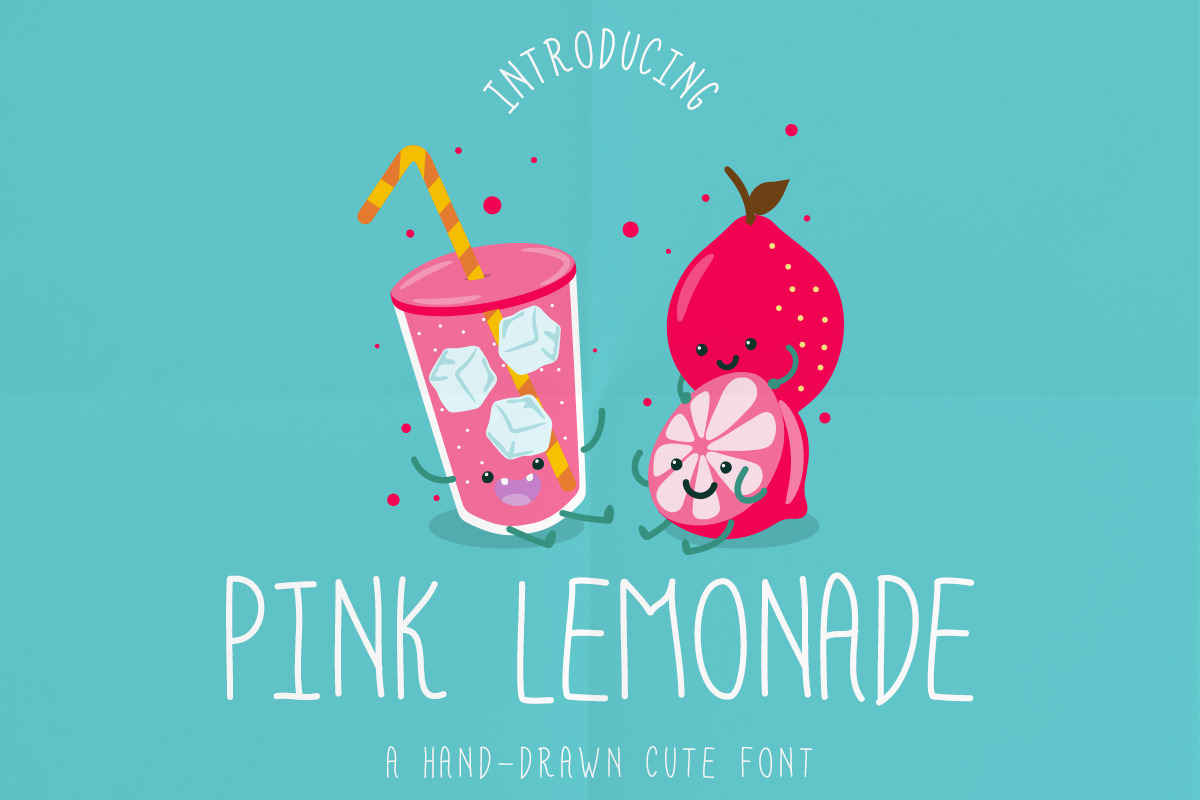
Pink Lemonade a hand-drawn cute font
Pink Lemonade is a cute and effortless handwritten font. Get creative with its playfulness, and use it to brighten up all your upcoming crafting projects!
This font is perfect for:
• greeting cards
• packaging
• branding
• social media and more!
As the nature of the characters is hand-drawn some "wonky" lines might be found which helps to add another touch of organic in the font that resonates with my style!